The year is ending, and as our 2024 vision boards lay completed (or not), we welcome one of the most wonderful times of the year: Christmas. A moment for family, friends and (hopefully) some much needed off-screen time. If you’re still running those creative gears this December, we have a collection of free fonts to add to your collection.
1. Trickster by Jean-Baptiste Morizot
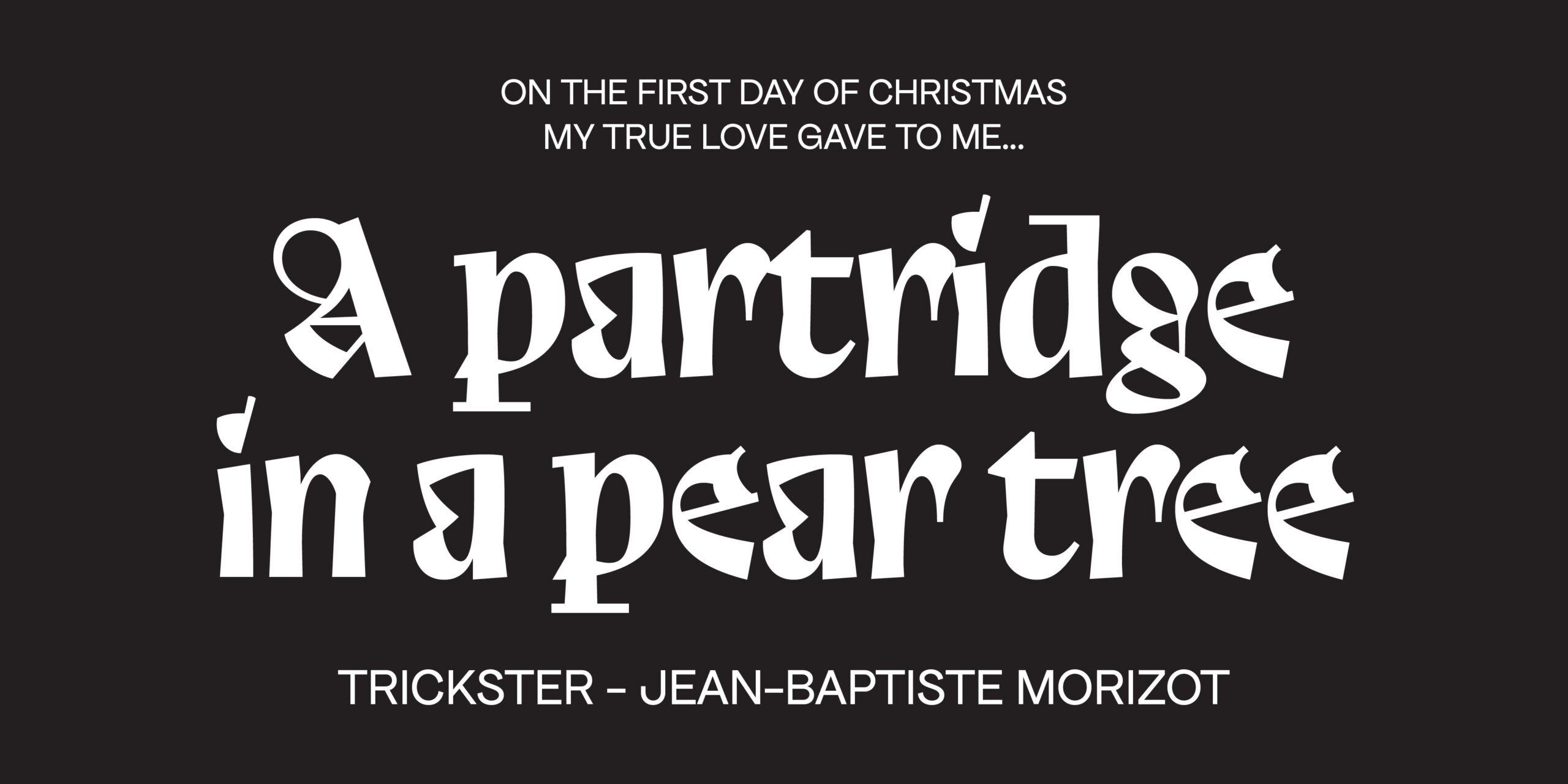
The font gets this name from the concept of the trickster, a character in stories who likes to play jokes or tell fibs. They are often cunning and unpredictable, and they love to challenge the rules and cause mischief. If gnomes were type nerds, we’re sure they’ll love Trickster. Designed by Jean-Baptiste Morizot and distributed by Velvetyne under the SIL Open Font License, you can download Trickster here.
2. Borel by Rosalie Wagner
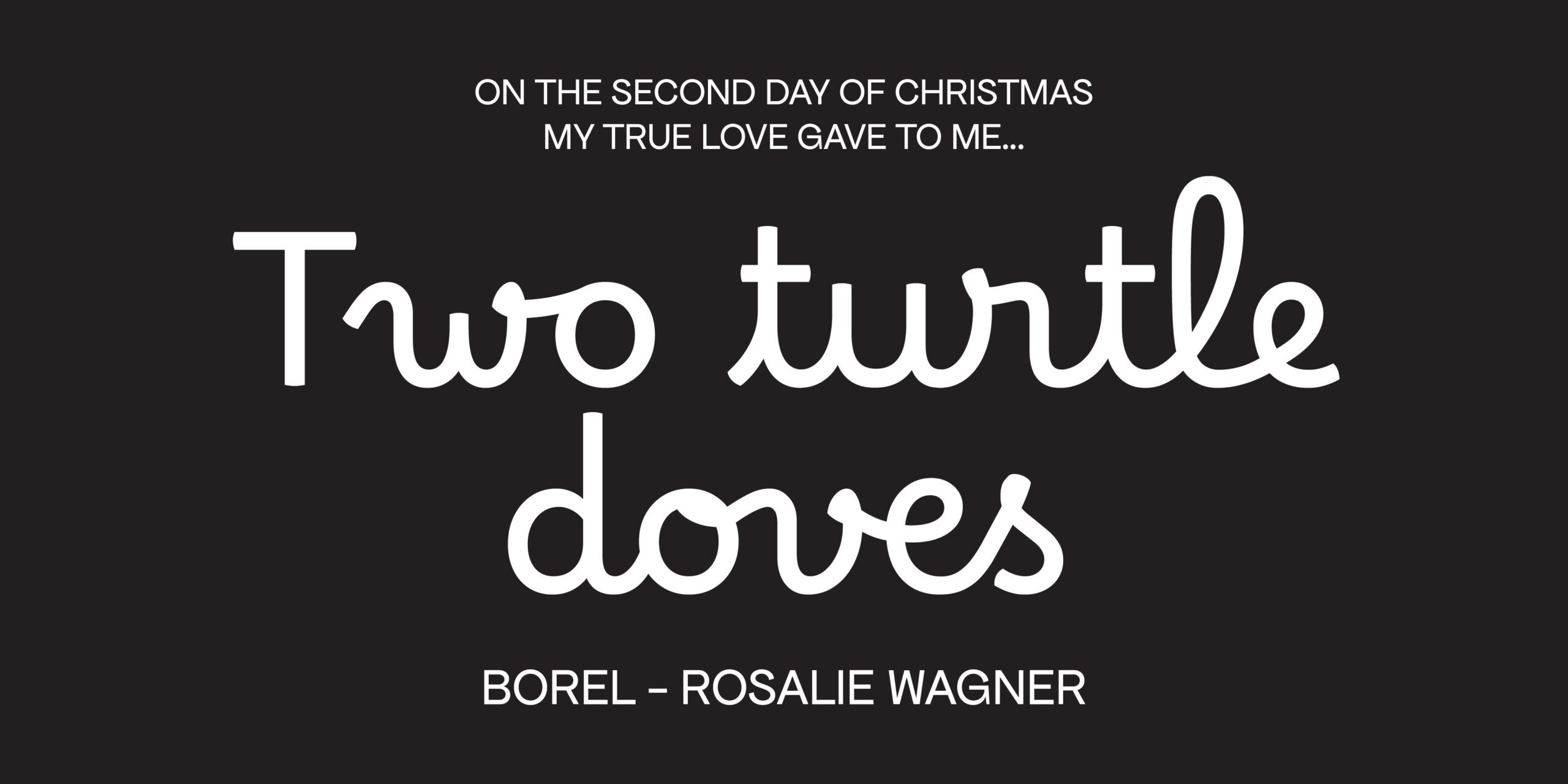
Borel is a special font designed to help kids learn to write cursive. It’s crafted by type designer Rosalie Wagner, the letters are clear and easy to read, and they flow smoothly together. This font is named after Suzanne Borel-Maisonny, who was a pioneer in helping kids learn to speak and read. A sweet alternative for your Christmas cards, download it here.
3. Lombard by Ania Wieluńska
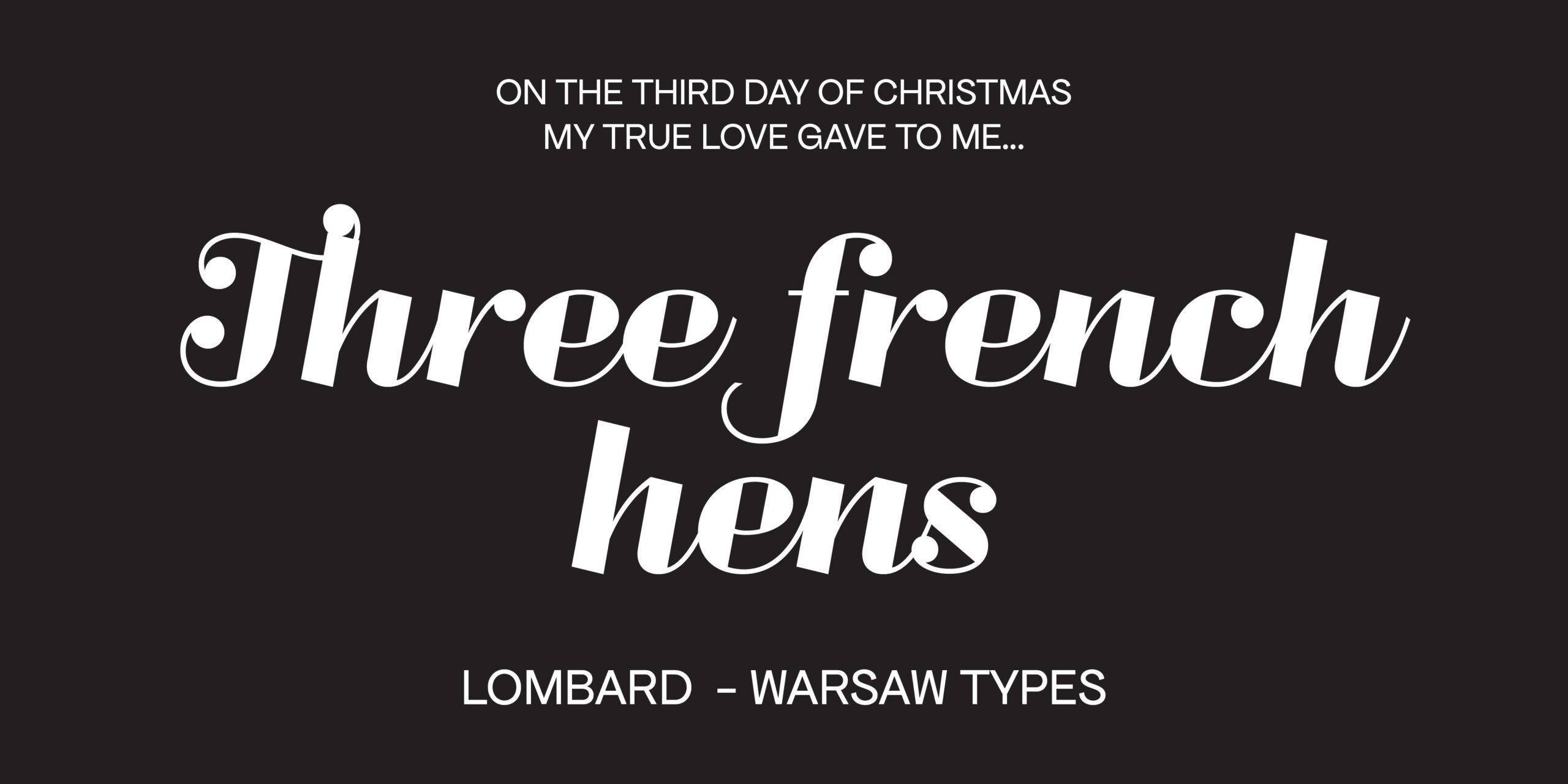
Warsaw Types is dedicated to recovering fonts found in the city of Warsaw, Poland by creating open-source typographic projects led by a team of young designers and experienced type designers. We’ve talked about them before, and we’re big fans of this beautiful project. In the case of Lombard, designed by Ania Wieluńska, the font blends the expressive style of traditional Warsaw neon signage with the bold, block letters often seen on local artisan shop signs. Find it in our free font hub.
4. Nightingale by Death of Typography
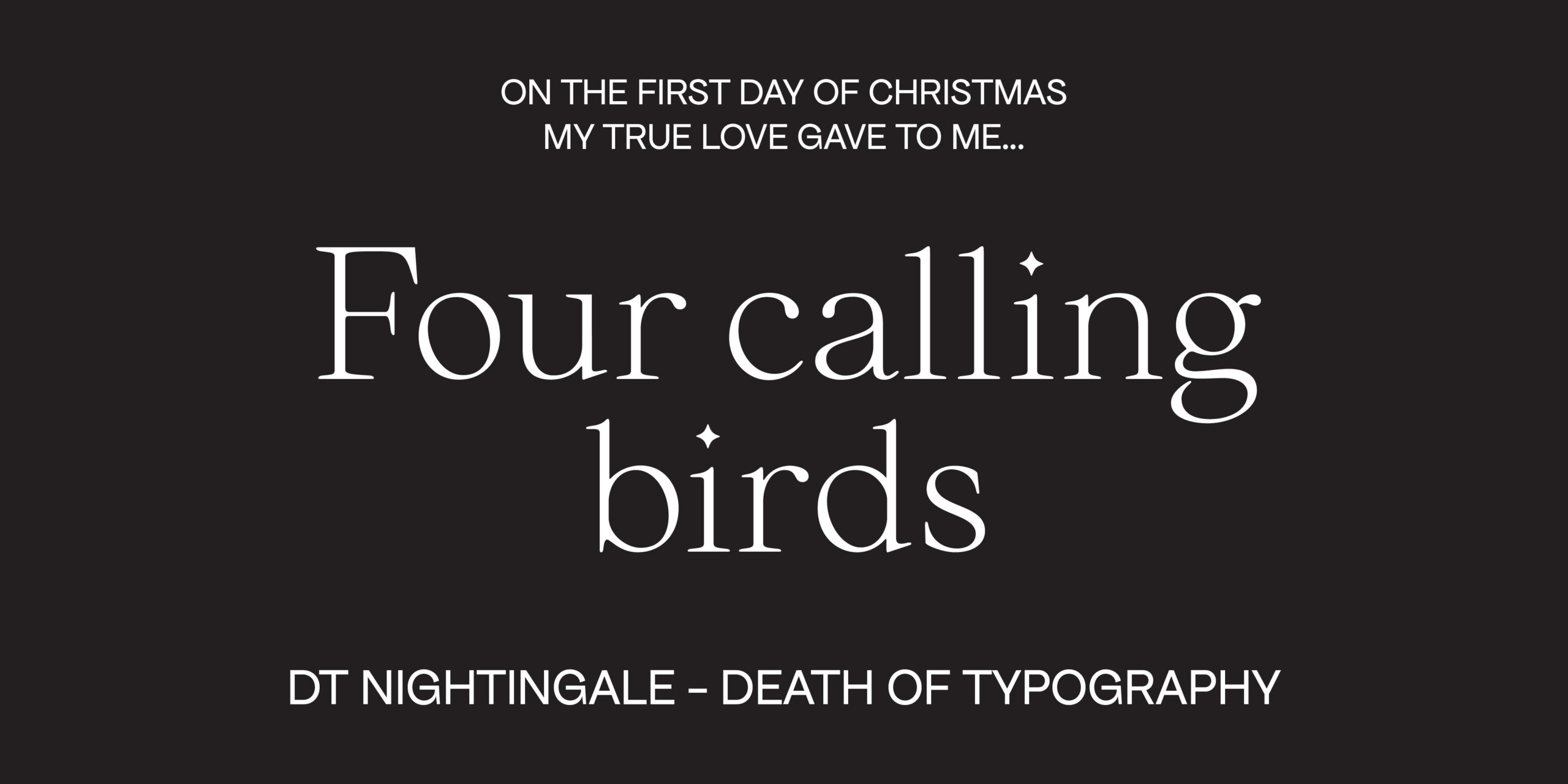
Nightingale is one of the products of the Death of Typography, a Singapore-based group of designers dedicated to exploring the world of type through creative experimentation and teamwork. As a single-weight display font, it features tapered serifs, oblique axes, and teardrop terminals enhancing rhythm, expressiveness, and elegance. The little star as a dot over the lower-case “I” is our favorite detail. Licensed under the SIL Open Font License, you can get Nightingale through this link.
5. Parkinsans by Red Stone
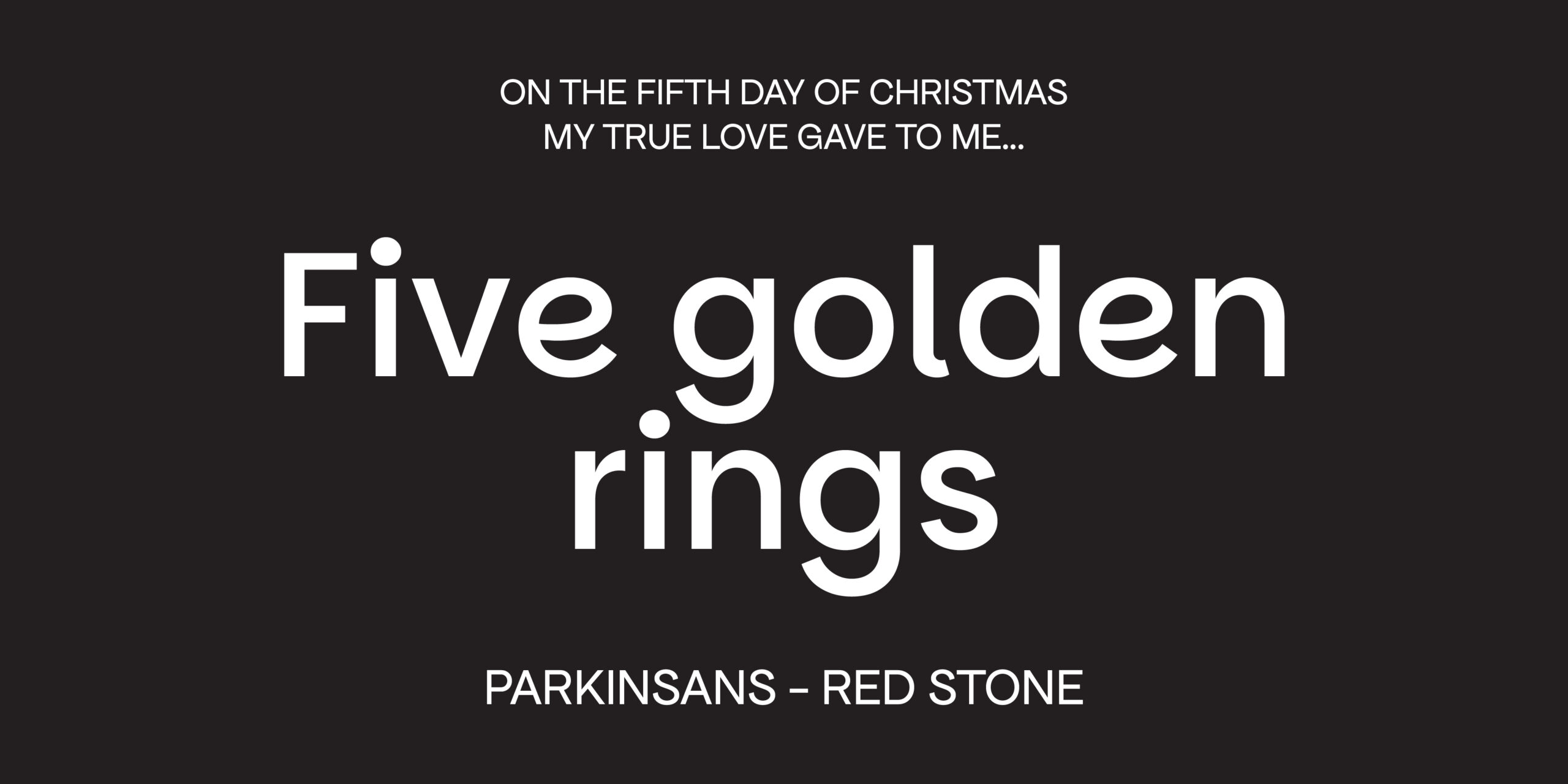
Parkinsans, a geometric sans-serif font designed by the award-winning London-based agency Red Stone for Parkinson’s UK, captures the charity’s vibrant spirit and the unique challenges of living with Parkinson’s disease. This versatile font, available in 6 weights, is perfect for both bold headlines and easy-to-read body text. It’s based on Poppins, another open-source classic, and it’s currently part of the Google Fonts catalogue, download it here.
6. Bricolage Grotesque by Mathieu Triay
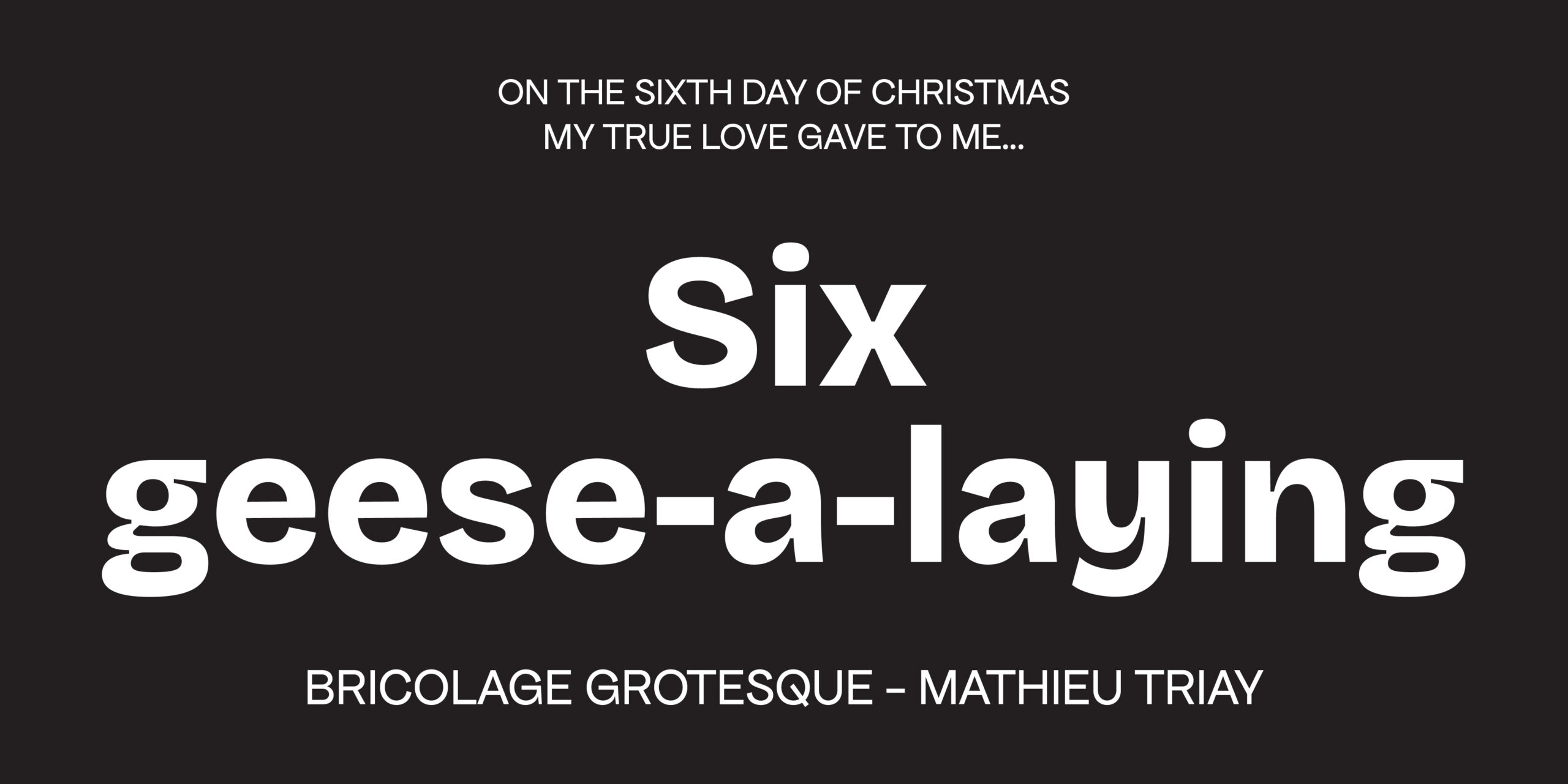
Bricolage Grotesque is a versatile font inspired by French and British design traditions. It combines the energy of Grotesque Nº9 with the calm of Antique Olive, resulting in a unique blend of styles. This font designed by Mathieu Triay reflects the complex experience of cultural transition and identity. Mathieu leads Atelier Triay, a small creative studio specializing in web design and typography. You can find Bricolage here.
7. Pinyon Script by Nicole Fally
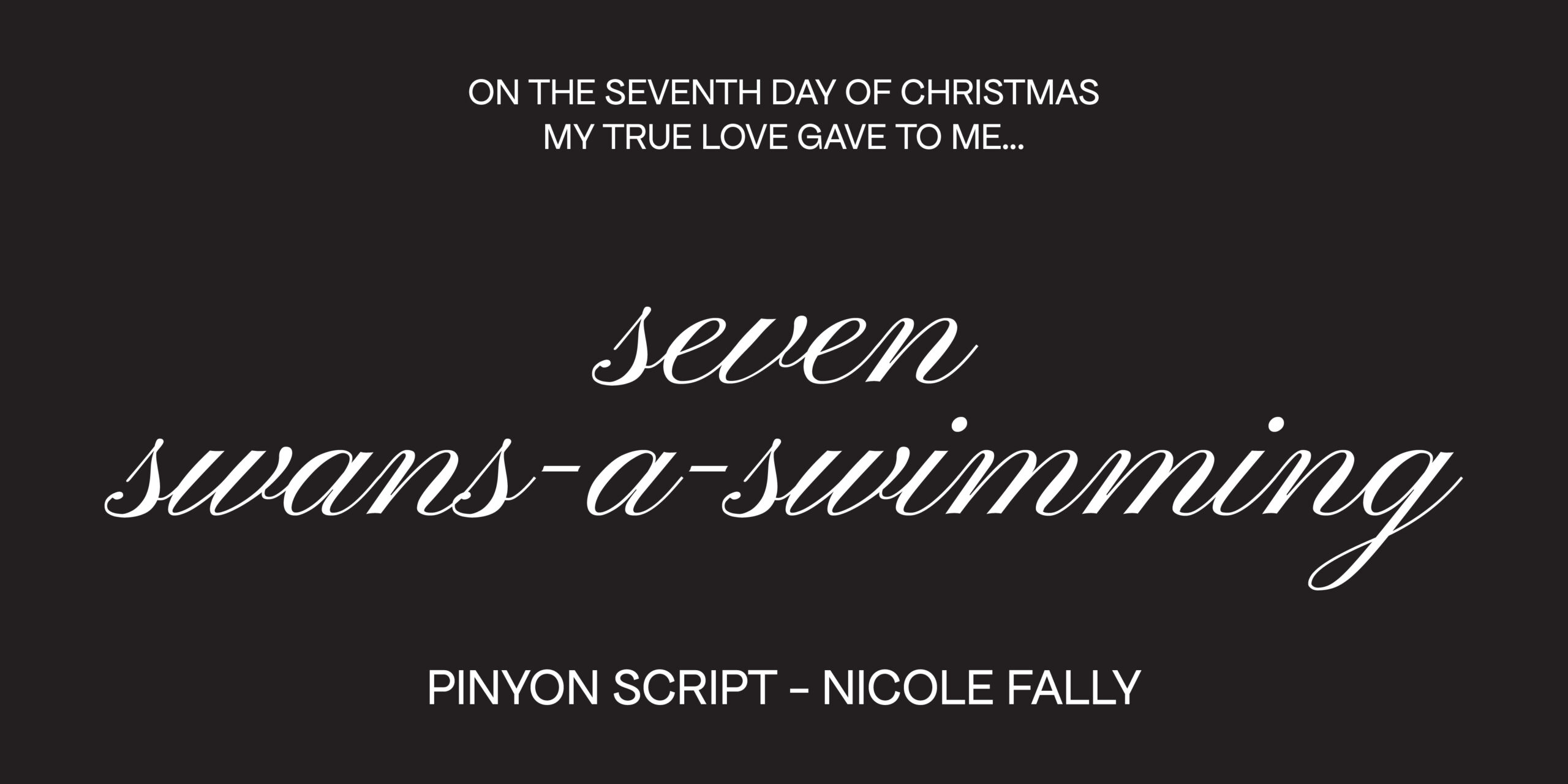
Pinyon Script is a romantic, flowing font with bold swashes. Its elegant style, combined with a touch of Western flair, makes it feel both sophisticated and friendly. Best suited for larger sizes, Pinyon Script’s distinctive slant and high contrast create a striking visual impact. This font is so stunning it looks custom-made. Designed by Nicole Fally for Sorkin Type, you can download it here.
8. Besley by Indestructible Type
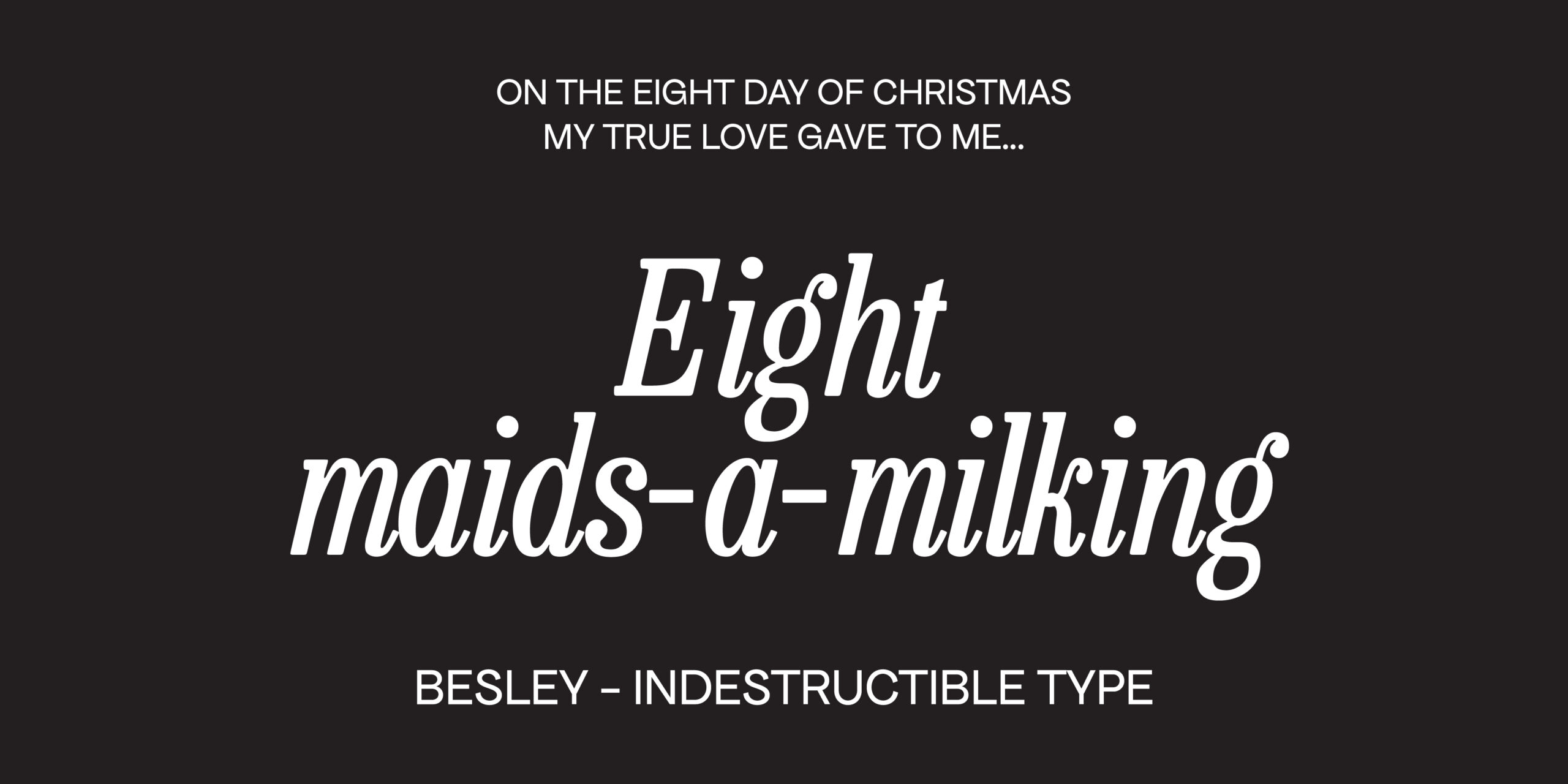
Inspired by the timeless Clarendon of Robert Besley, Besley is an antique slab serif typeface of exceptional versatility. Available in a comprehensive range of weights and italics, it offers a subtle warmth through softly rounded corners. OpenType features such as ligatures and contextual substitutions elevate the typographic experience. Also, it newest version features narrow and condensed styles that are absolutely gorgeous. Crafted by Owen Earl, the creator behind Indestructible Type, it can be yours here.
9. Roubaix Industrielle by Tunera Type Foundry
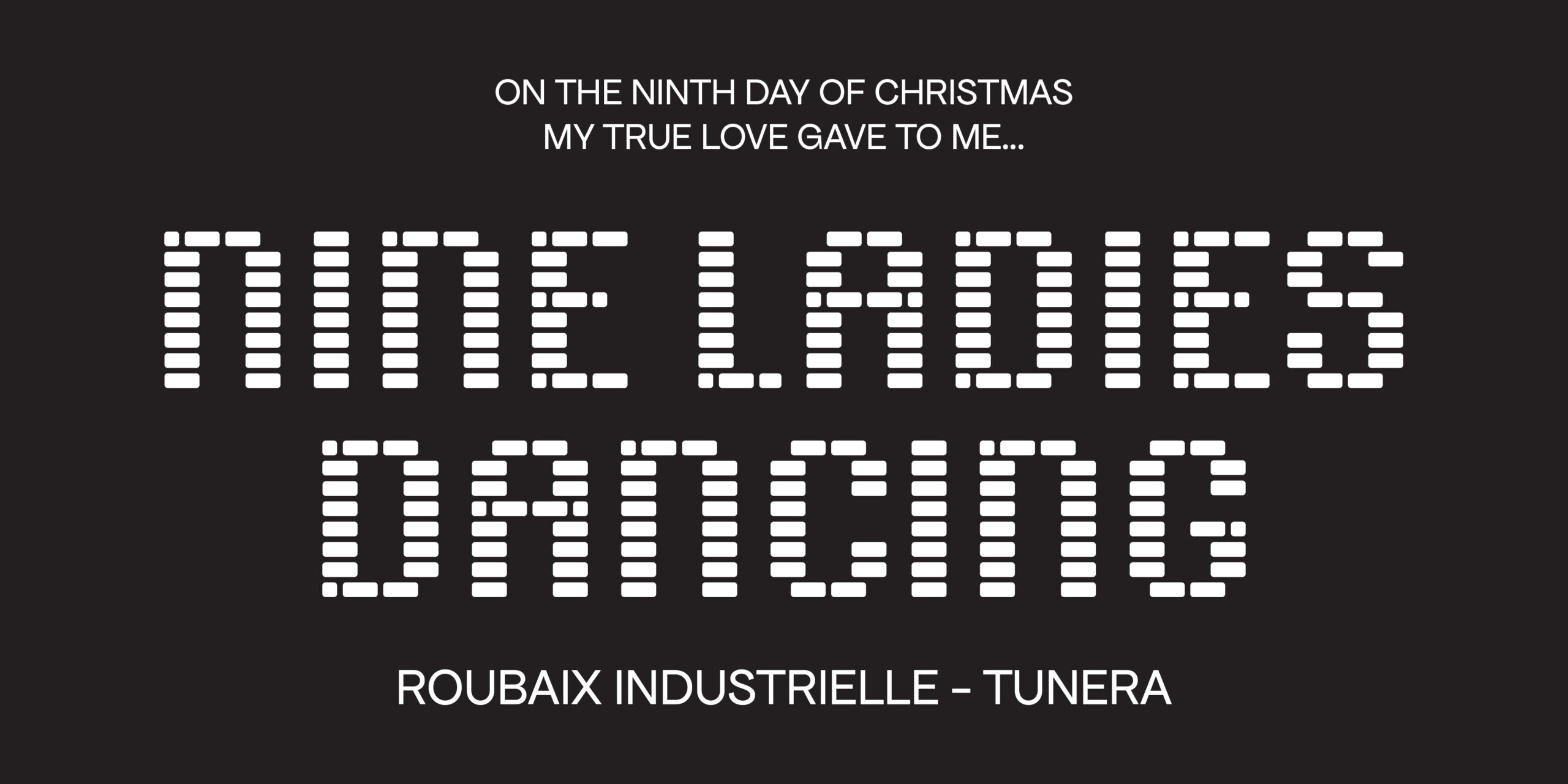
Designed by Ariel Martín Pérez, Roubaix Industrielle is a typeface inspired by Roubaix’s, the French city, industrial past. Its brick-shaped design references the city’s architecture, while internal connections on smaller sizes nod to its textile heritage. It has a bunch of variants depending on the letter height and print purposes. Imagine this font being embroided, so lovely! You can find Roubaix Industrielle, one of the fonts from Tunera Type Foundry, here.
10. Tiltortion by SUVA Type Foundry
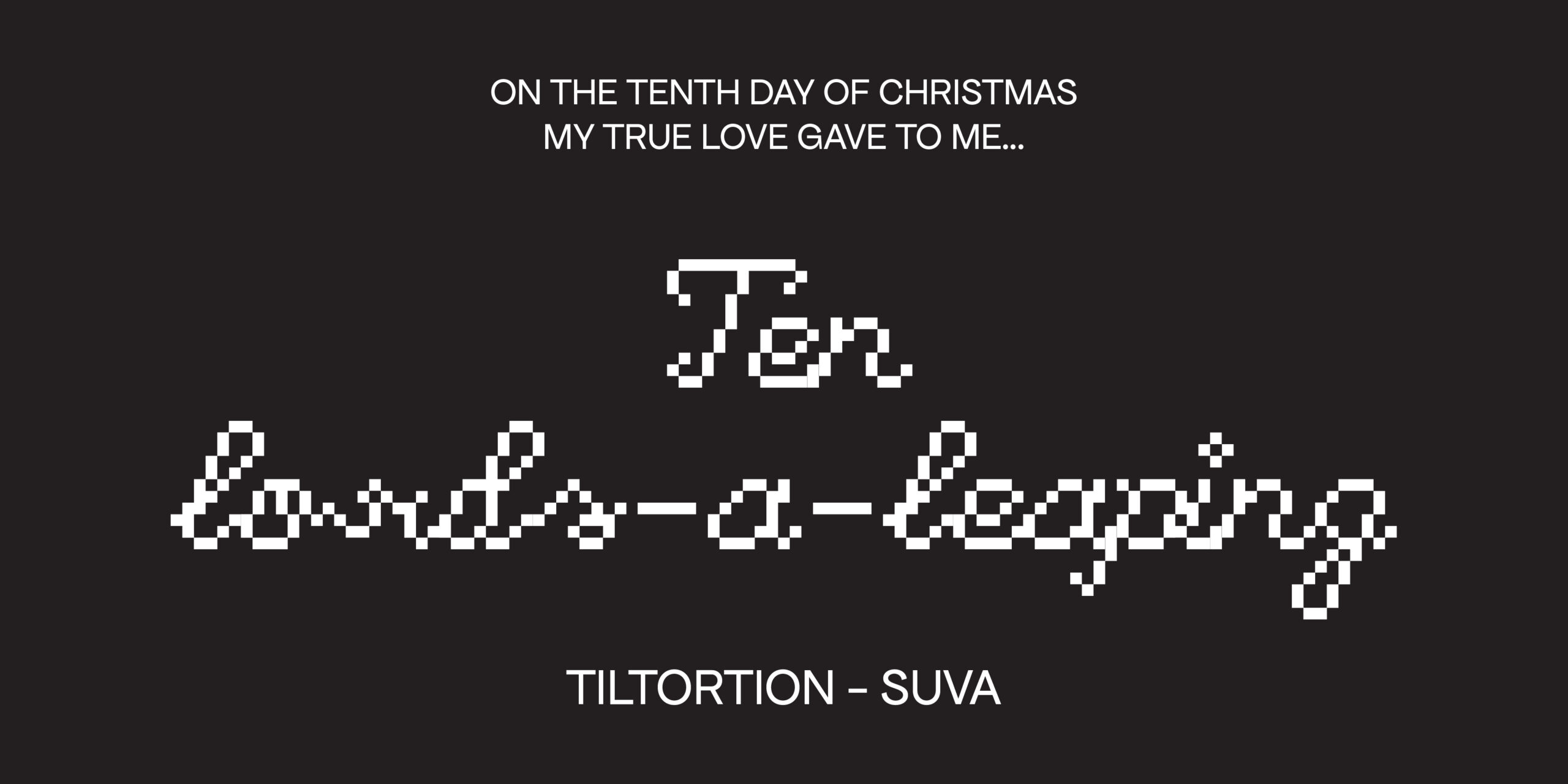
Tiltortion blends “tilted” and “distorted.” Inspired by fading neon signs, this font replaces smooth lines with pixelated edges. It was designed by Cristopher Siniväli for SUVA Typefoundry, a project that features fonts designed by students of the Graphic Design Deparment of the Estonian Academy of Arts. Reminds us of vintage afternoons playing videogames on Christmas morning. You can get Tiltortion in our free font library here.